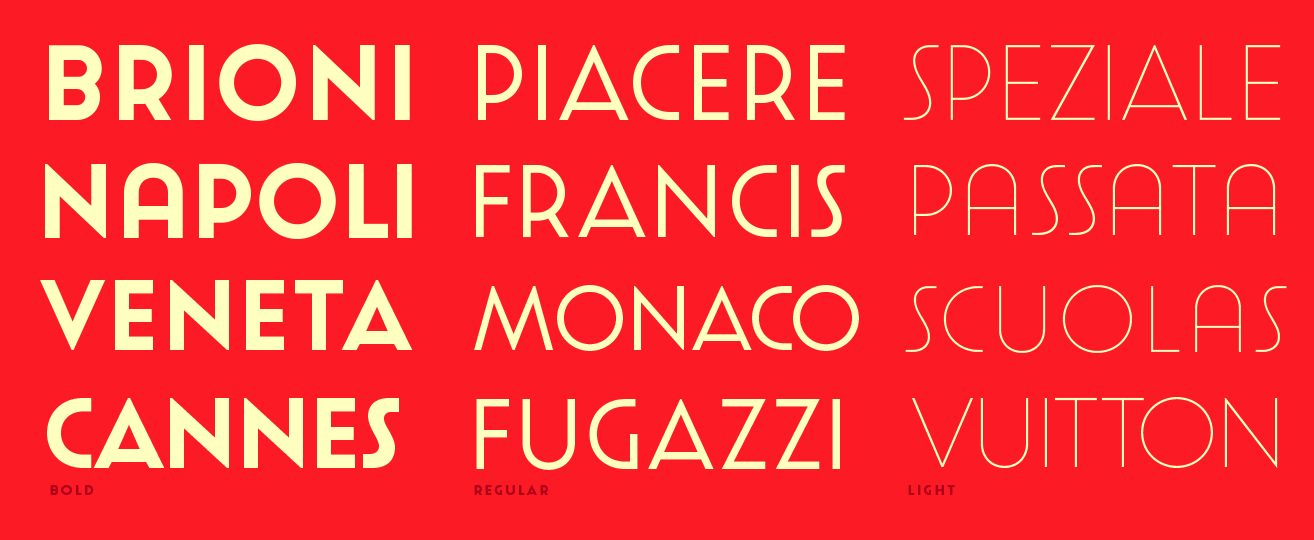
Miguel Angel Hernández Montoya
Miguel Hernandez is a graphic designer, type designer, illustrator and teacher in Santiago de Chile. Born in 1977 in Concepcion Chile, he studied Graphic Design at Universidad del BioBio State University in Chillan, Chile. He currently teaches Typography at Universidad Diego Portalesand and Universidad de las Americas in Santiago de Chile. Miguel contributed greatly to the early success of the Chilean type foundry Latinotype which he cofounded in 2007 with Felipe Soto in Concepción, Chile. In 2011, he cofounded Los Andes Type. Some time in or just before 2015, he broke his relationship with Latinotype. In 2015, he set up ABC Alphabets by Chileans together with Tania Chacana. In 2020, Joaquin Contreras and Miguel Hernandez Montoya set up Archetypo.xyz from their new base in Germany. His typefaces:
Before Latinotype, Miguel Hernandez created many pixel typefaces. The typefaces made in that period before 2007 include:
• The truly perfect pixel font family Fundamental (2003).
• The pixel font Sligthest.
• The sans family Chile (2004), Chile Sans (2005). Chile Sans won at the Tipos Latinos 2008 competition.
• The highway signage typeface Optica (2004).
• The fifties diner-style screen font Detroit 45 (2002).
• The bitmap display font Kuppa (2003).
• The church stone engraving simulation typeface Finaita (2002).
• The Western pixel font Arizona (2003, perfect!).
• The bitmap handwriting font Wolfgang Bold.
• The screen font Screenager (2002).
• The funky bitmap font Groobit.
• Minority (2002, a very small screen font).
• Fundamental (2002, a very original screen font, with ligatures for "rr" and "LL", for example), which was subsequently published at tipografia.cl.
• The ultimate pixel font Miguel's Three Dots (2002).
• The pixel display font Circa (2002).
• The pixel fonts Capitalista, Garadot (2003, a fantastic pixel version of an elegant Garamond) and Harmonica.
• The script pixel fonts Anticrisp (2003) and Essential Bold.
• The gray pixel typeface Sushi (2004, hiragana, katakana, Latin).
• The serif font Quetzal (2003).
• The bitmap family Sugar (2003).
• The bitmap family Apple (2004, based on Apple's Chicago).
• At Atomic Media, he released Carbona and Carbona Bold in 2002, as well as 12 bitmap fonts in 2003: Maya, Fundamental, Azteca, Tekilla, Aymara, Minority, Quadratis, Carnoa Plain&Bold, Machina Typewriter, Dotic (blackletter), Mezcal, Circa.
• In 2004, he joined Ultra Pixel Fonts, where he made the pixel typefaces Orbital, Sugar, Odyssey, Solar, Voltage, Jetson.
• At Latinotype, he made Picara Sans (2007, an organic sans), Cadena (2007, a rounded sans which won at Tipos Latinos 2008), Love (2007, ultra fat rounded) and Mote (2007, rounded sans display face).
• Co-designer with Tania Chacana of ABC Normal (2016) which they motivate in this way: Normal is a working horse for the Modern Grotesk Canon, result of study of the models from Theinhardt, Renner, Novarese & Gerstner; avoiding to reveal a personal style. There is a 2021 version as well, ABC Normal, a 24-style modern grotesk still with large x-height, again by Miguel Hernandez Montoya, with production assistance of Tania Chacana.
• Designer of the sans typeface AA Idea (2021).
• Uomo (2021, Alphabets by Chileans). Created by Miguel Hernandez, Tania Chacana and Miguel Hernandez Montoya, this 27-style all caps typeface features Italian art deco elements. /UL>